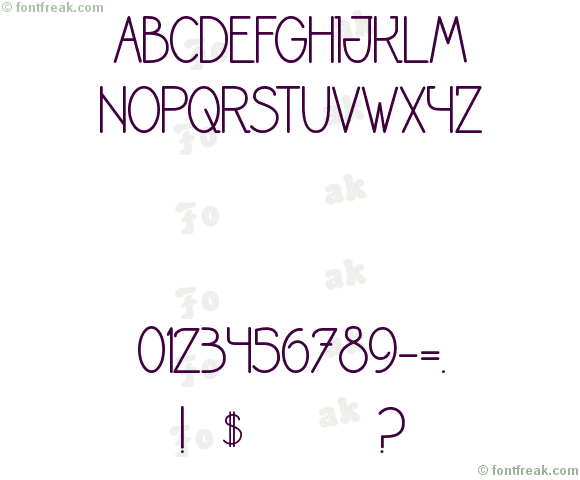
LECABARETDESFOUS
The LECABARETDESFOUS font by Maelle.K is a striking display typeface that makes a bold statement in any design project. Characterized by its playful and whimsical style, this font is perfect for those looking to infuse a sense of fun and creativity into their work. The visual characteristics include a medium stroke weight with smooth curves and rounded edges, giving it a friendly and approachable feel. The contrast between the letters is subtle yet effective, making it easy to read while still retaining a unique personality. The spacing is well-balanced, allowing for clear legibility, even at larger sizes.
LECABARETDESFOUS excels in various use cases. It is an excellent choice for wedding invitations, where its charming aesthetic can elevate the romantic theme. Additionally, this font is ideal for movie posters, particularly for films with a comedic or lighthearted tone. Restaurant menus can also benefit from its quirky appeal, inviting diners to experience a lively atmosphere. Moreover, content creators can utilize this font in social media graphics to capture attention and engage audiences.
What sets the LECABARETDESFOUS font apart is its ability to convey a fun-loving spirit while maintaining clarity and elegance. Its unique design offers versatility, making it suitable for a wide range of creative projects. For those interested in adding a touch of whimsy to their designs, the LECABARETDESFOUS font free download is a must-have addition to any font library.